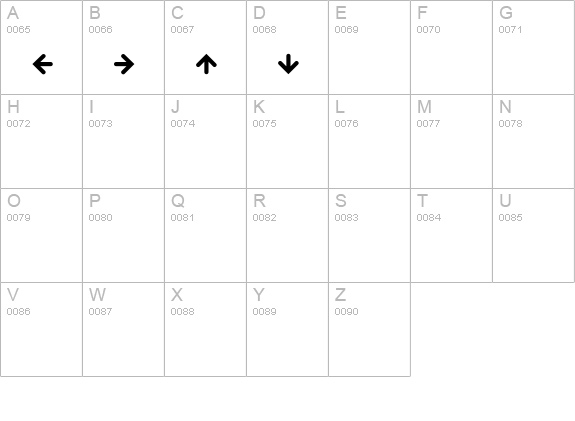
Clicker-Expert Font Details
Introducing Clicker-Expert font, a versatile and modern typeface perfect for a wide range of design projects. This unique font features clean lines and a sleek, professional appearance that is sure to make your text stand out. Whether you're designing a website, creating a logo, or working on a print project, Clicker-Expert font has got you covered. The best part? Clicker-Expert font is available for free download at FontsMarket.com. That's right, you can get your hands on this high-quality font without spending a dime. So why wait? Enhance your designs with Clicker-Expert font today and take your projects to the next level.